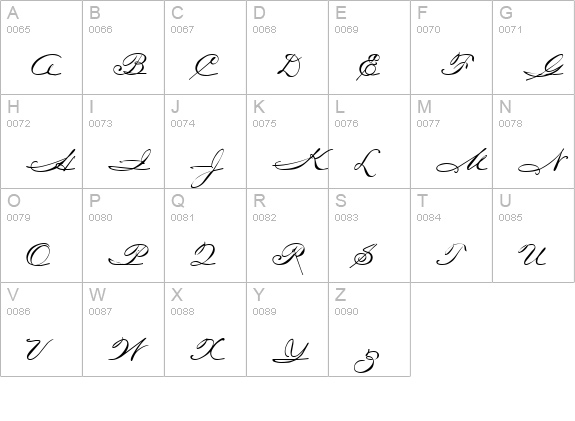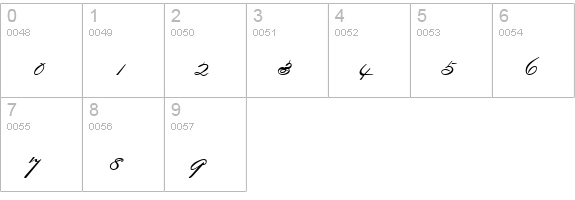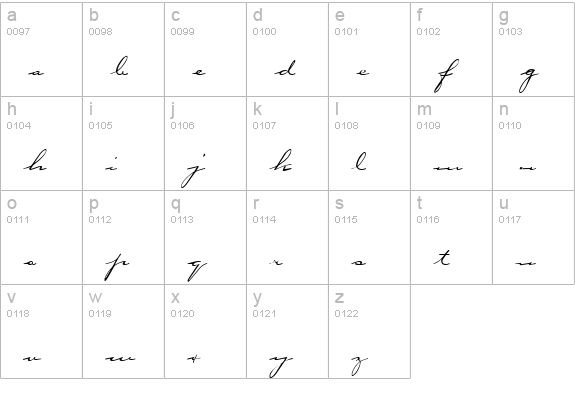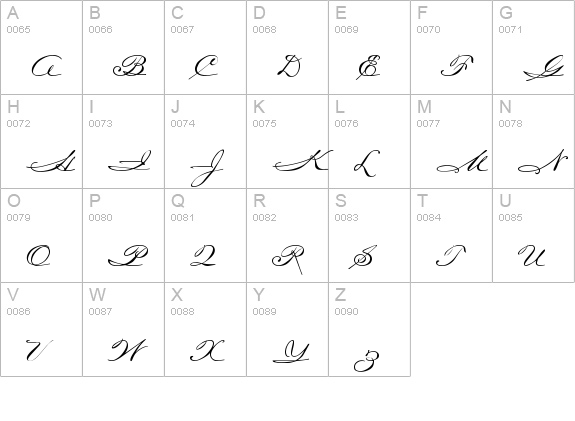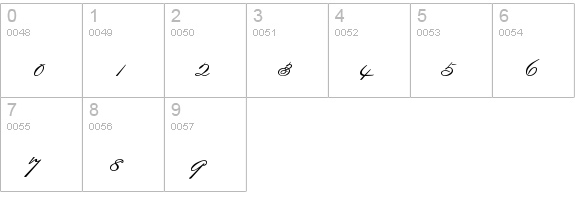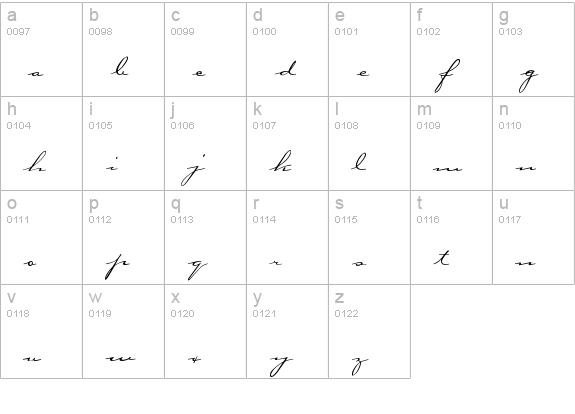
Julia-HandScript Font Details
The Julia-HandScript font is a stunning and elegant typeface that exudes charm and sophistication. Its flowing handwritten style brings a sense of warmth and personality to any design project. With its delicate curves and graceful strokes, Julia-HandScript is perfect for adding a touch of elegance to invitations, cards, logos, and more. What's even better is that the Julia-HandScript font is free to download at FontsMarket.com! This means you can easily access this beautiful typeface and use it in your projects without any cost. Whether you're a designer looking to add a unique flair to your work or someone wanting to enhance their personal projects, Julia-HandScript is the perfect choice. Download it now and elevate your designs with this exquisite font.